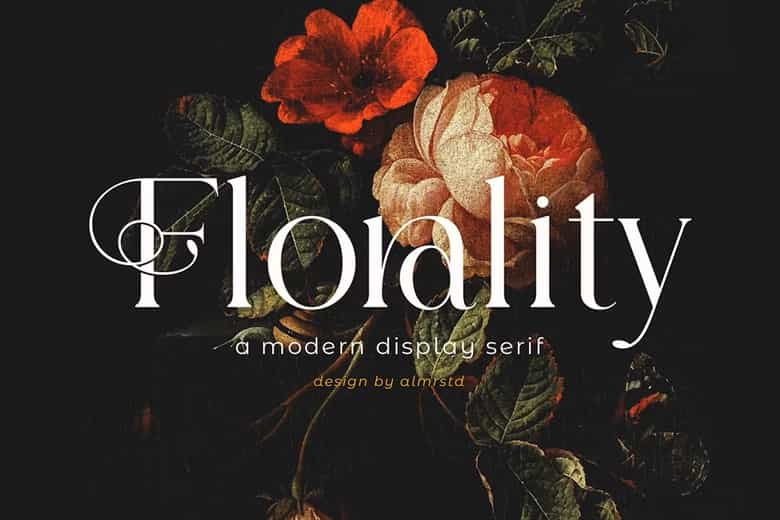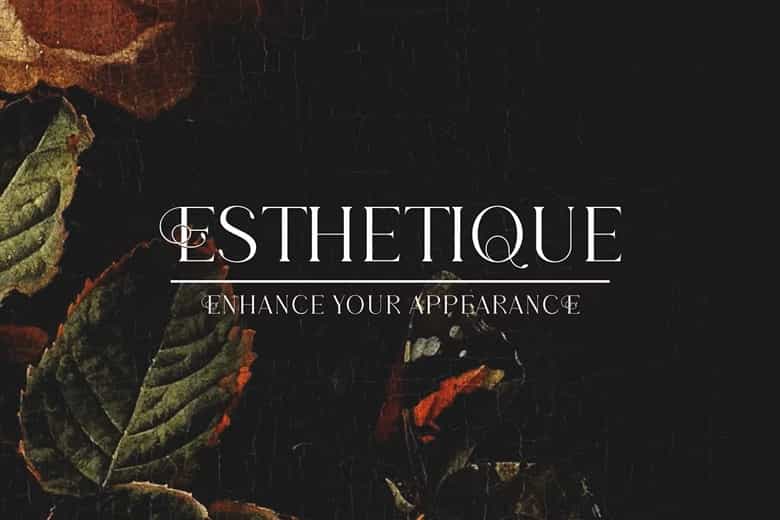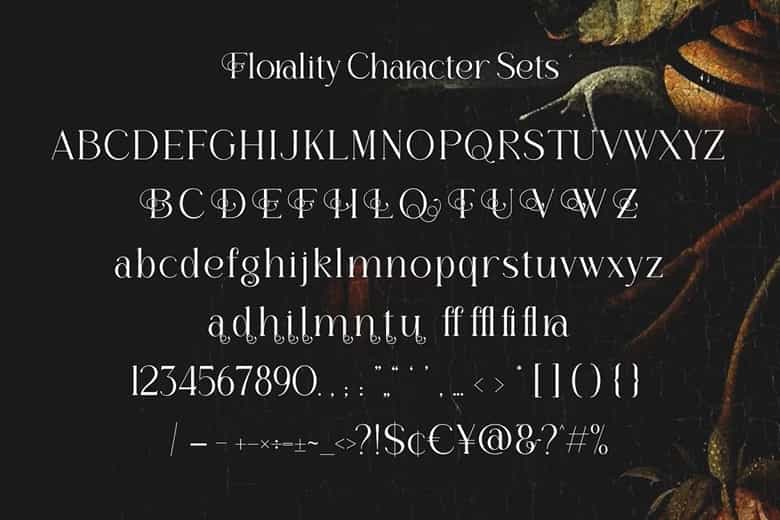
Florality is a contemporary display serif typeface, This kind of typeface is quite appropriate to your different purposes, including branding projects, logos, social media posts, advertisements, labels, product packages, photography, wedding designs, watermark, invitation product designs, stationery, and any projects.